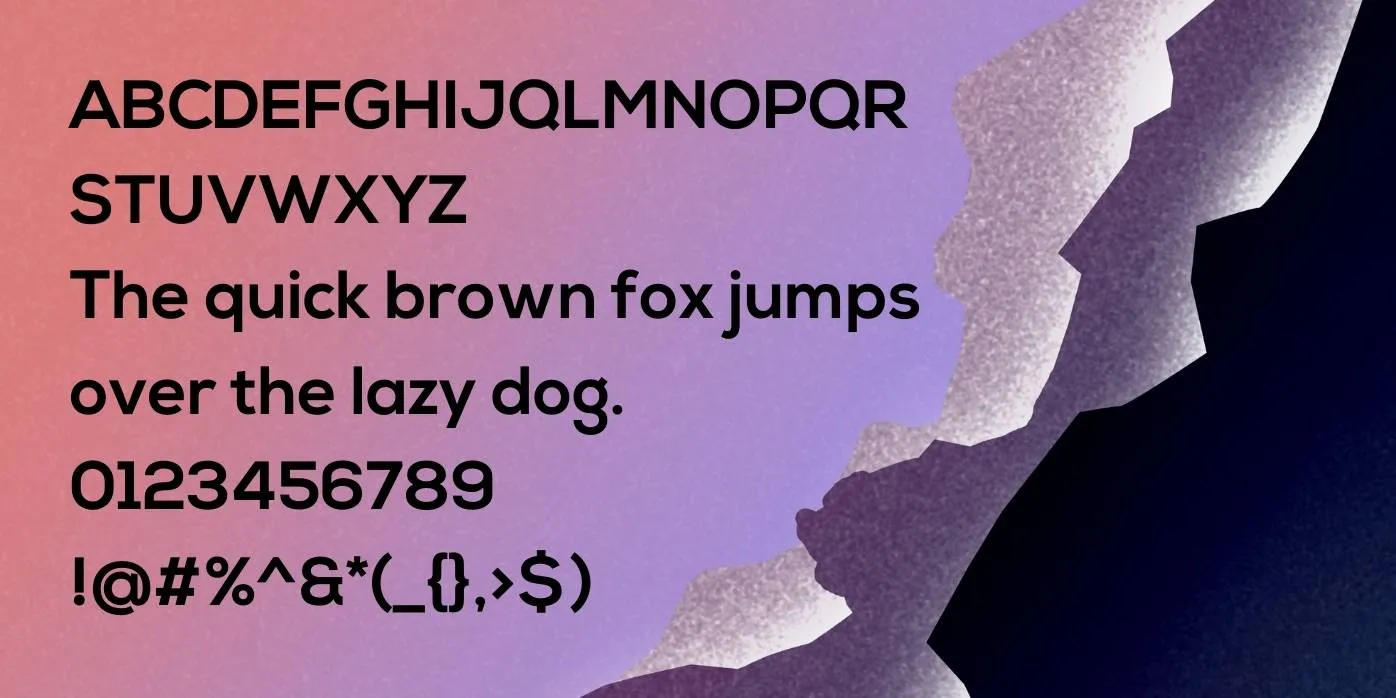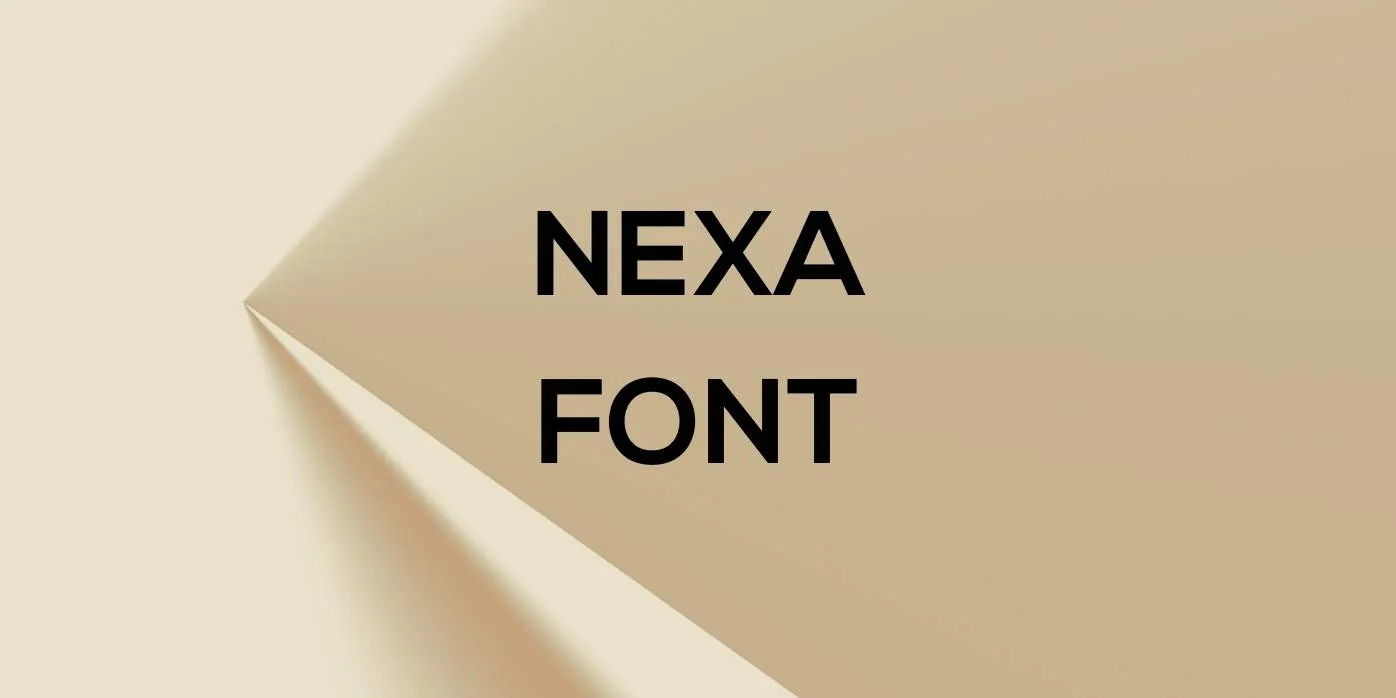
Nexa Font
Nexa font is the most beautiful typeface that is great due to its bold characters. It belongs to a Sans Serif typeface family and the designer of this typeface is the most famous organization Fontfabric with Svet Simov. This typeface has different styles and weights that include Regular, Bold, and Italic, etc. It has an OTF feature and has the ability to support many languages and accents for international designers.
All the weights and styles are very unique for any project. If we talk about its characters the font family has Uppercase letters, Lowercase Letters unique symbols, Numbers and Numerals, etc. It is specially designed for great readability in Web and print designs. The font’s characters have an excellent geometrical visual effect.